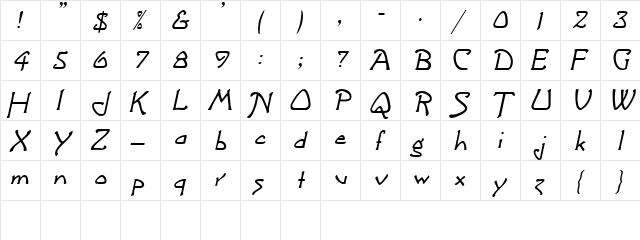
Argonaut Italic
Design Context for Argonaut Typeface
Argonaut takes a measured approach to typography — its balanced proportions and neutral character make it a reliable workhorse for both digital and print work. The slanted form adds forward momentum and visual energy.
Pro Tip: Try Argonaut for annotation and caption copy alongside an upright companion — the contrast in angle creates a dynamic but ordered typographic system.